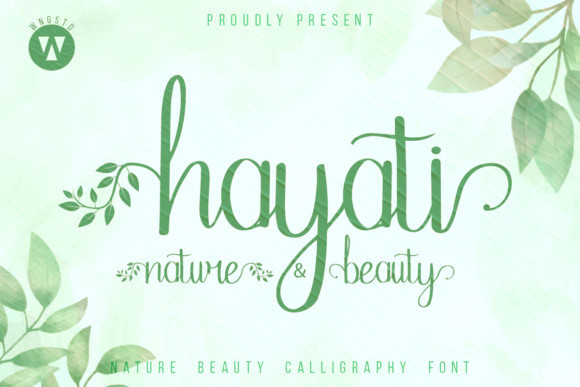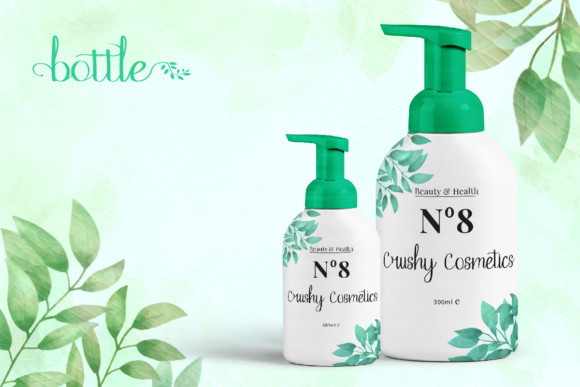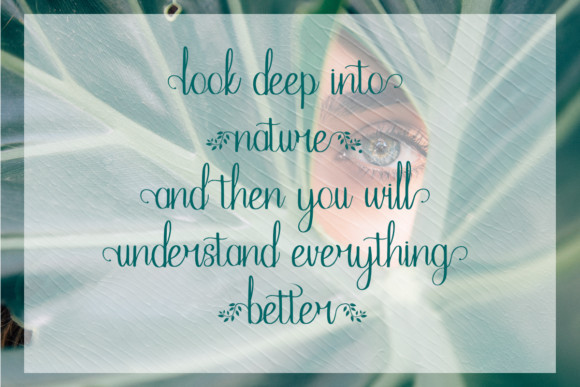
Hayati Font
Hayati FontHayati is a beautiful handwritten font with a nature theme. Use it for any design projects that require a charming appearance!.